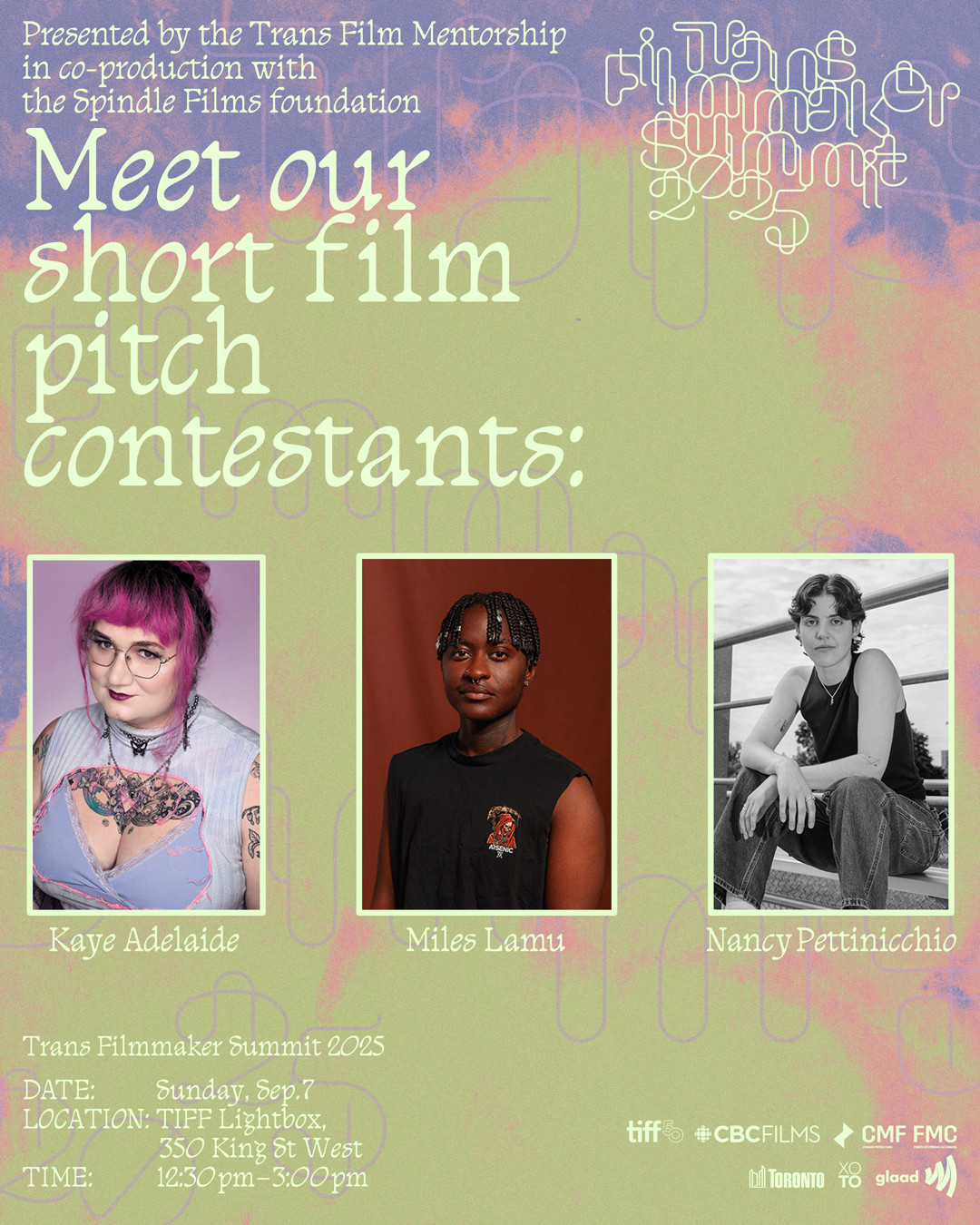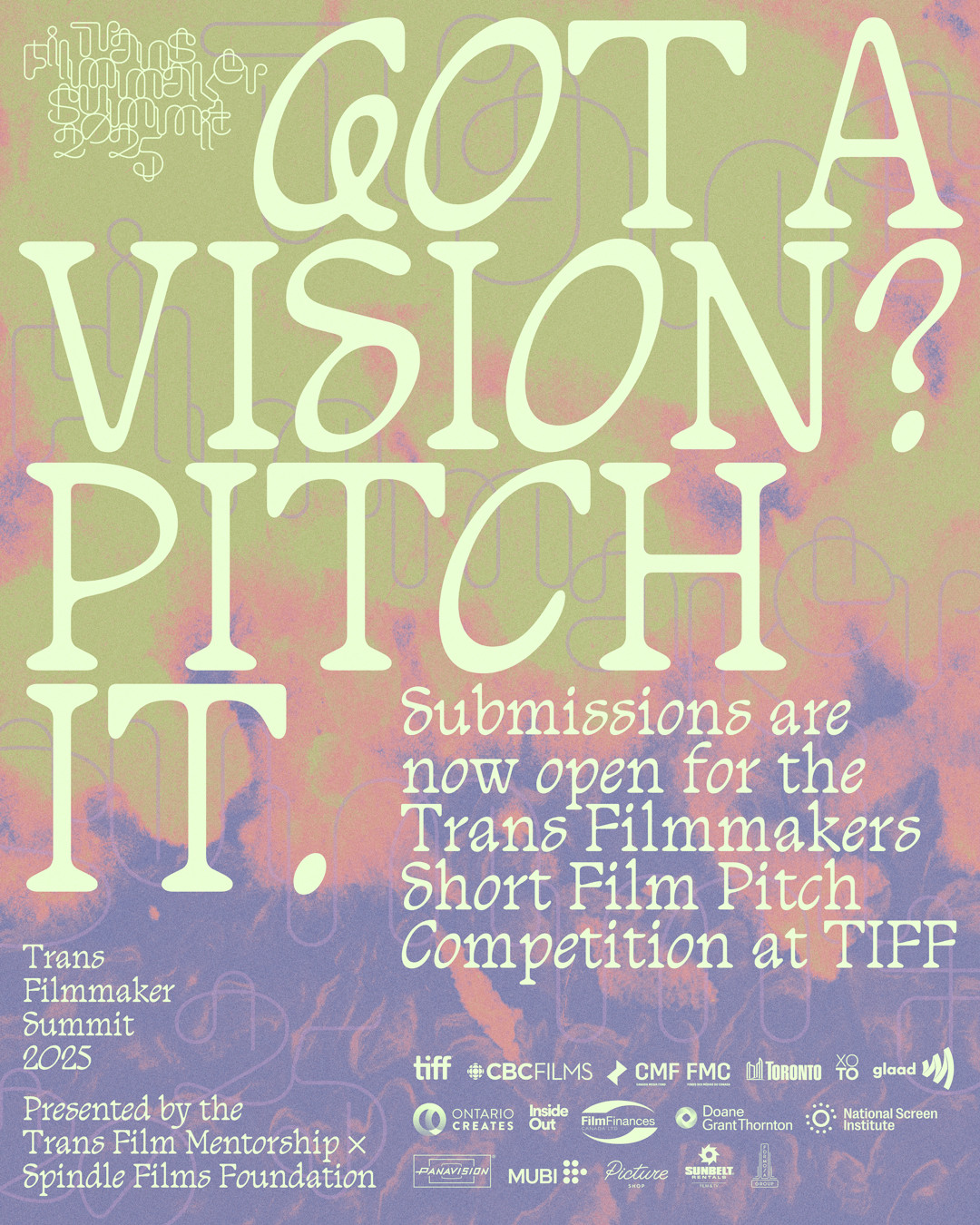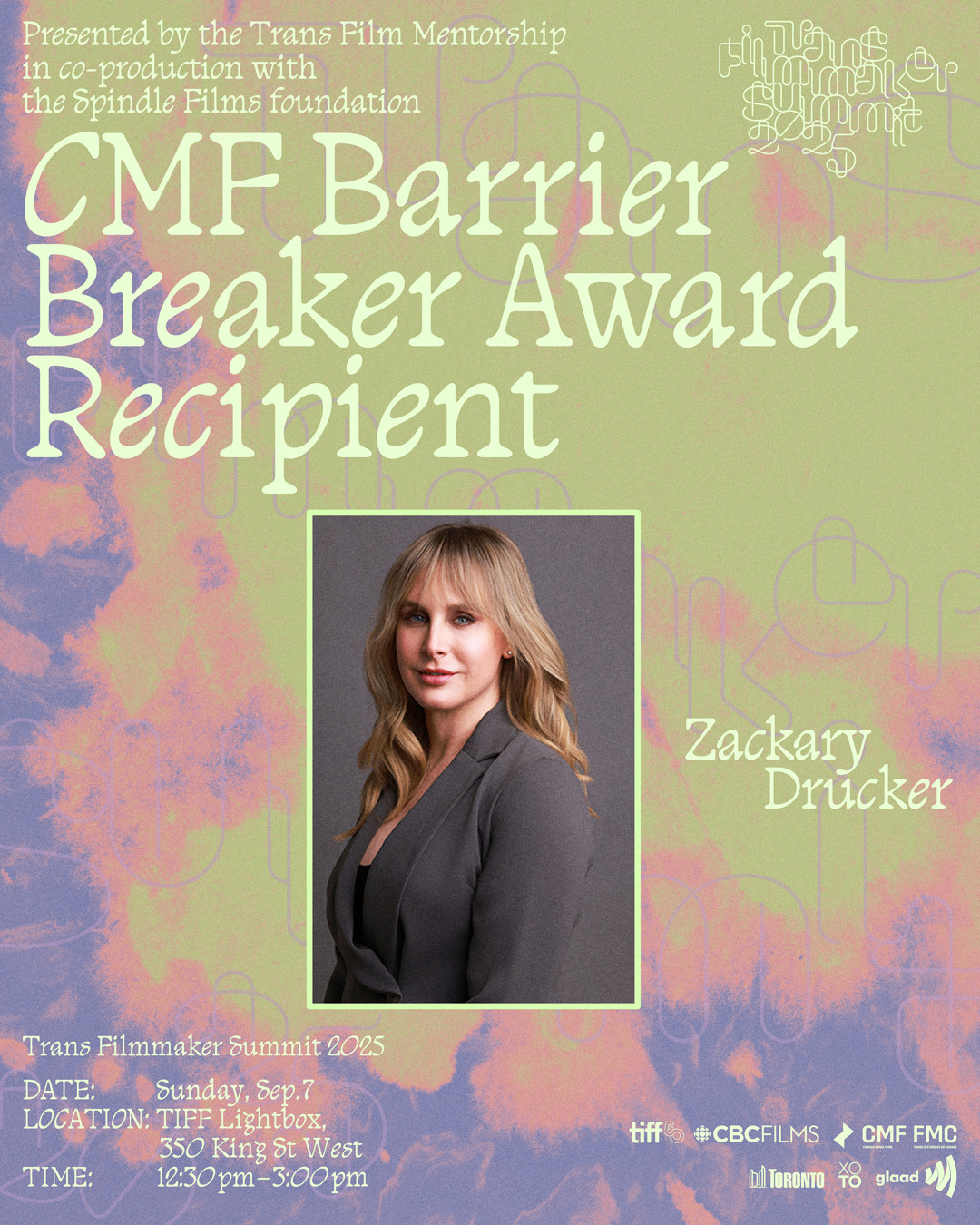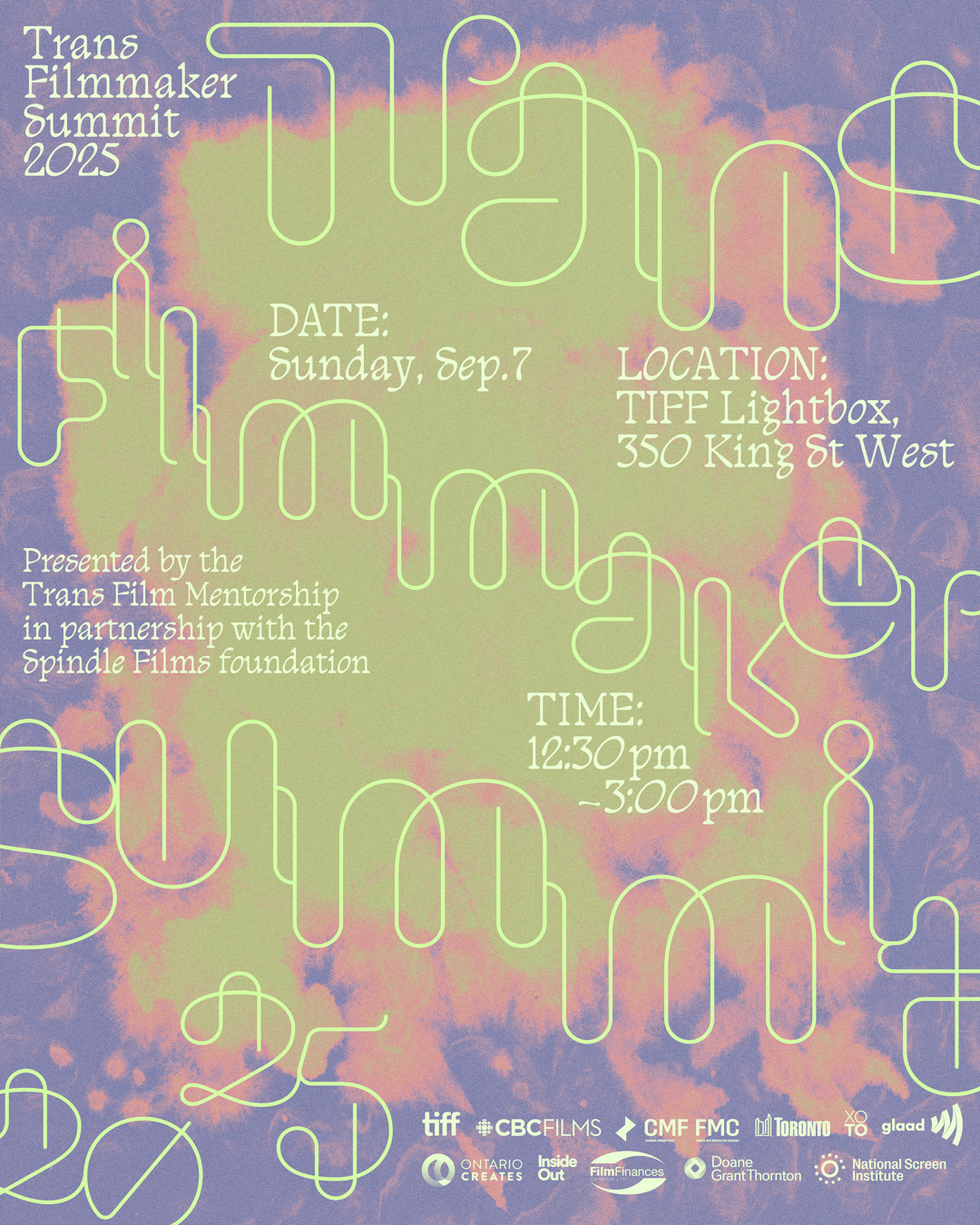
Trans Filmmaker Summit TIFF
The Trans Filmmaker Summit returns for its fourth consecutive year at the 2025 Toronto International Film Festival. TFM’s mission is to increase the presence of trans and nonbinary professionals, filmmakers, creatives and crew in the film and television industry.
We created an open and friendly design concept communicating diversity and creativitiy that highlights the unique shapes of the letters. The colours allude to the transflag with an abstract and hand made feel. The variable concept was used for social media and the event graphics.
Typeface: Clip Font by Setup Type & Tagada von Laurent Müller